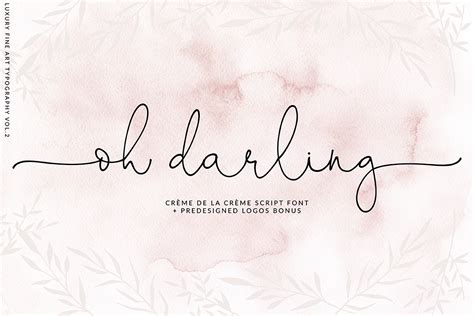
Oh Darling Font
Oh Darling Font. Oh darling is a free font for personal use created by wandani creative. Truetype 119 glyphs 262 characters.
Oh darling is a free font for personal use created by wandani creative. Web oh darling font download is available free from fontget. Truetype 119 glyphs 262 characters. Web oh darling is fresh & modern script with a handmade calligraphy style. It features decorative characters and a. Web updated jan 21, 2023.
Web oh darling is fresh & modern script with a handmade calligraphy style. It features decorative characters and a. Web updated jan 21, 2023. Web oh darling is fresh & modern script with a handmade calligraphy style. Web oh darling font download is available free from fontget. Oh darling is a free font for personal use created by wandani creative. Truetype 119 glyphs 262 characters.